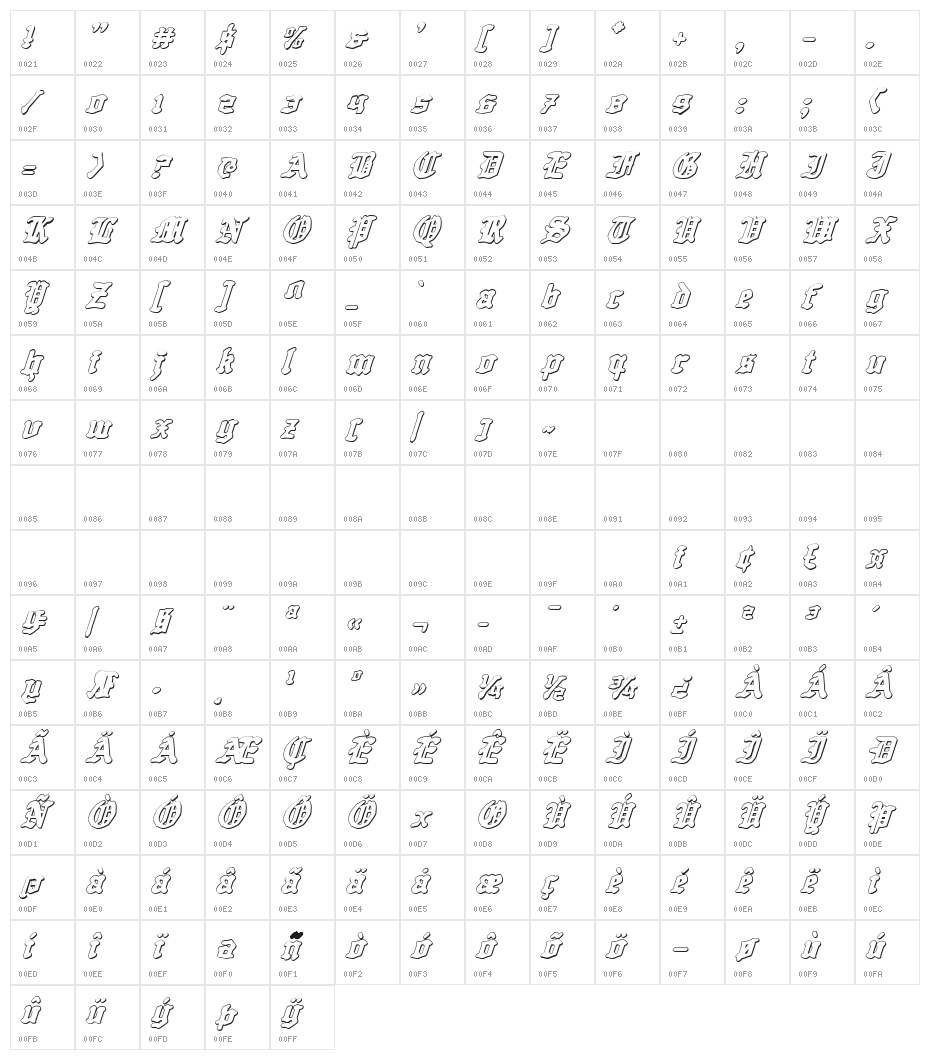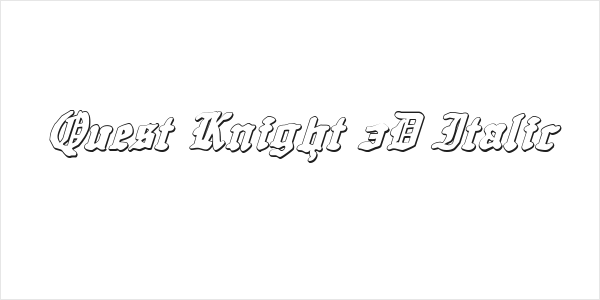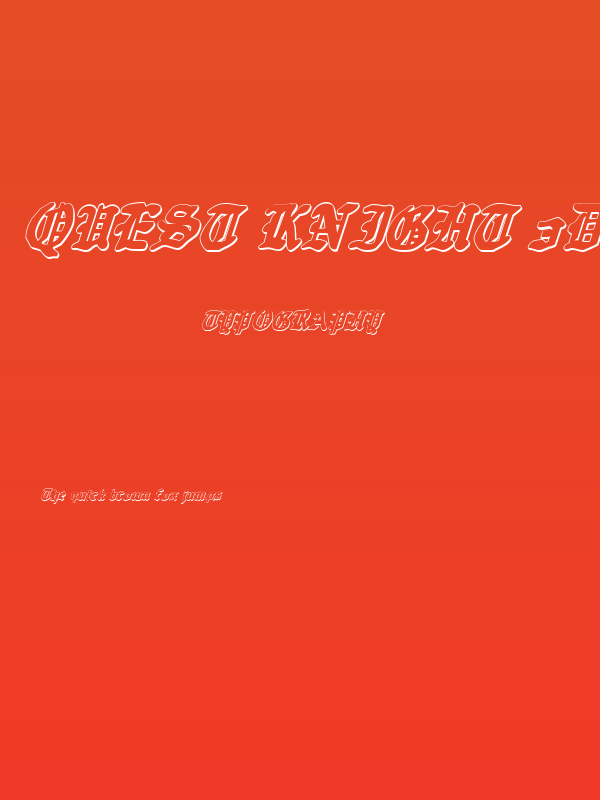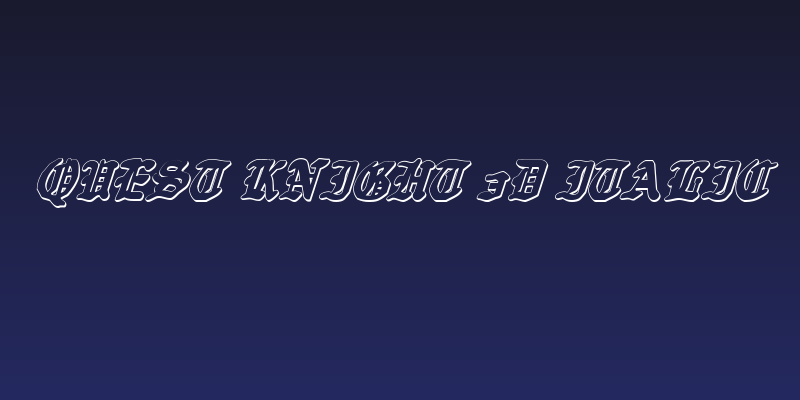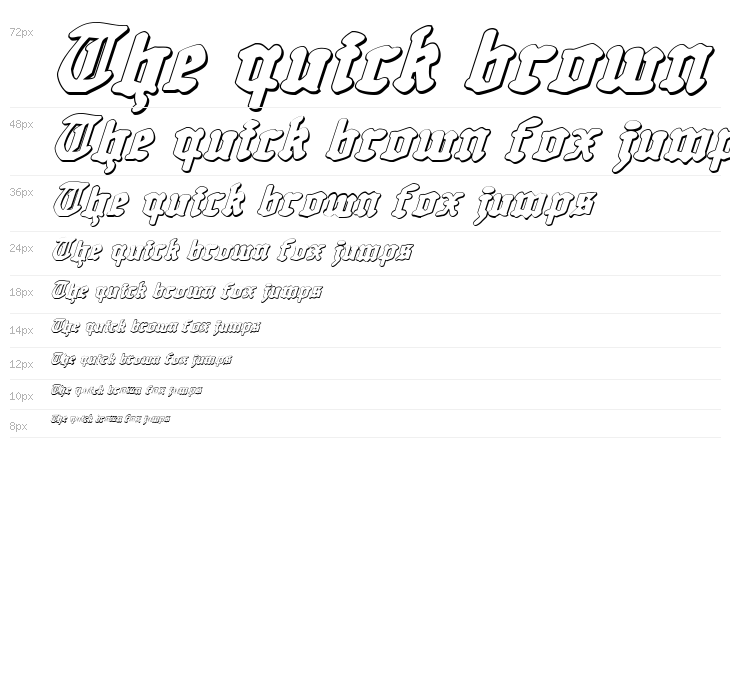
Quest Knight 3D Italic Font
Quest Knight 3D Italic Description
This font features a bold and dynamic 3D italic style, reminiscent of medieval or fantasy themes. The characters are outlined with a shadow effect that gives them a three-dimensional appearance, enhancing their visual impact. The uppercase letters are particularly ornate, with sharp angles and flourishes that add to the dramatic effect. The lowercase letters maintain the same boldness, ensuring consistency across the typeface. Numbers and special characters are designed to match the overall aesthetic, making this font suitable for projects that require a strong, eye-catching presence. The font's unique style is ideal for creative designs that aim to stand out.
| Proposed Projects | Perfect for fantasy-themed posters, video game titles, book covers, and branding that requires a dramatic touch. |